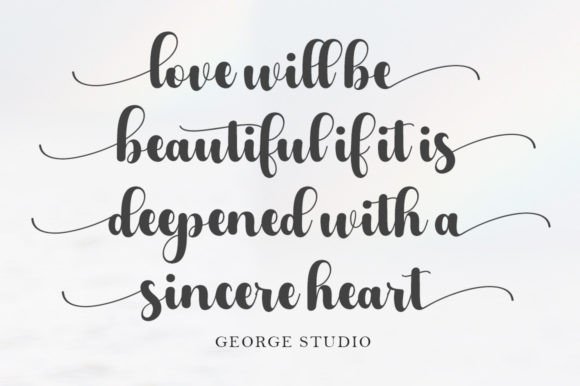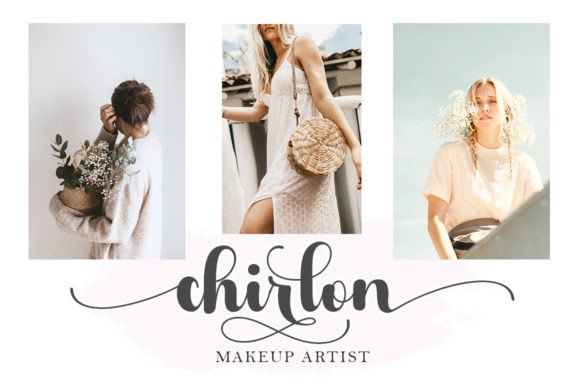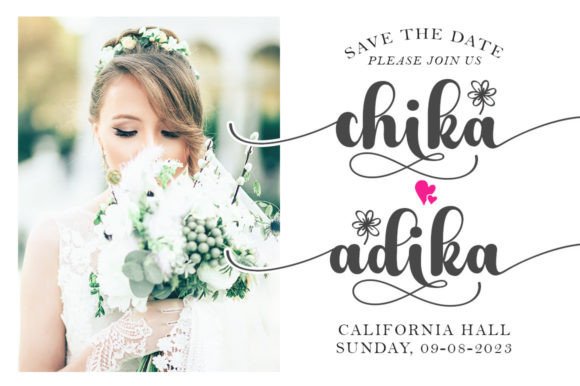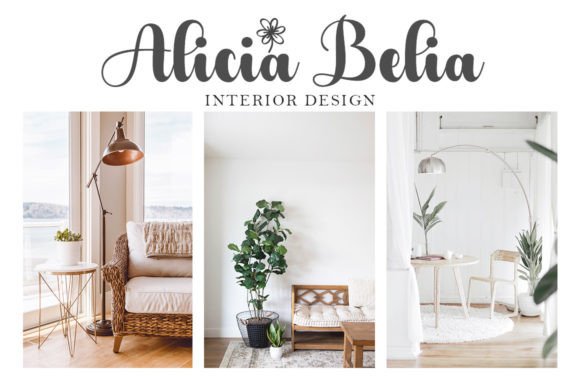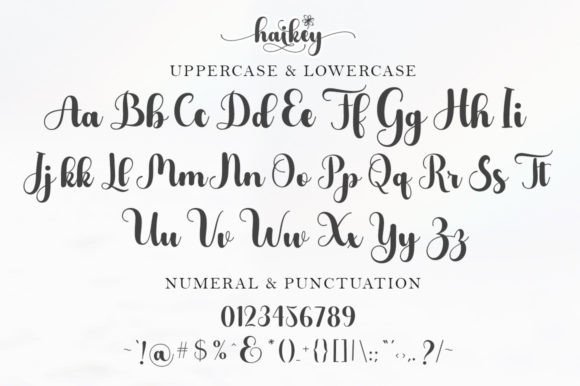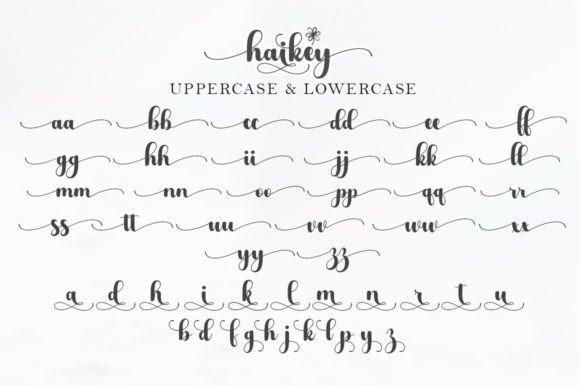
Introduction to Haikey Font
Haikey is a delicate, elegant, and flowing handwritten font perfect for your favorite projects.
Fall in love with its incredibly distinct and timeless style, and use it to create spectacular designs .
Key Features of Haikey Font